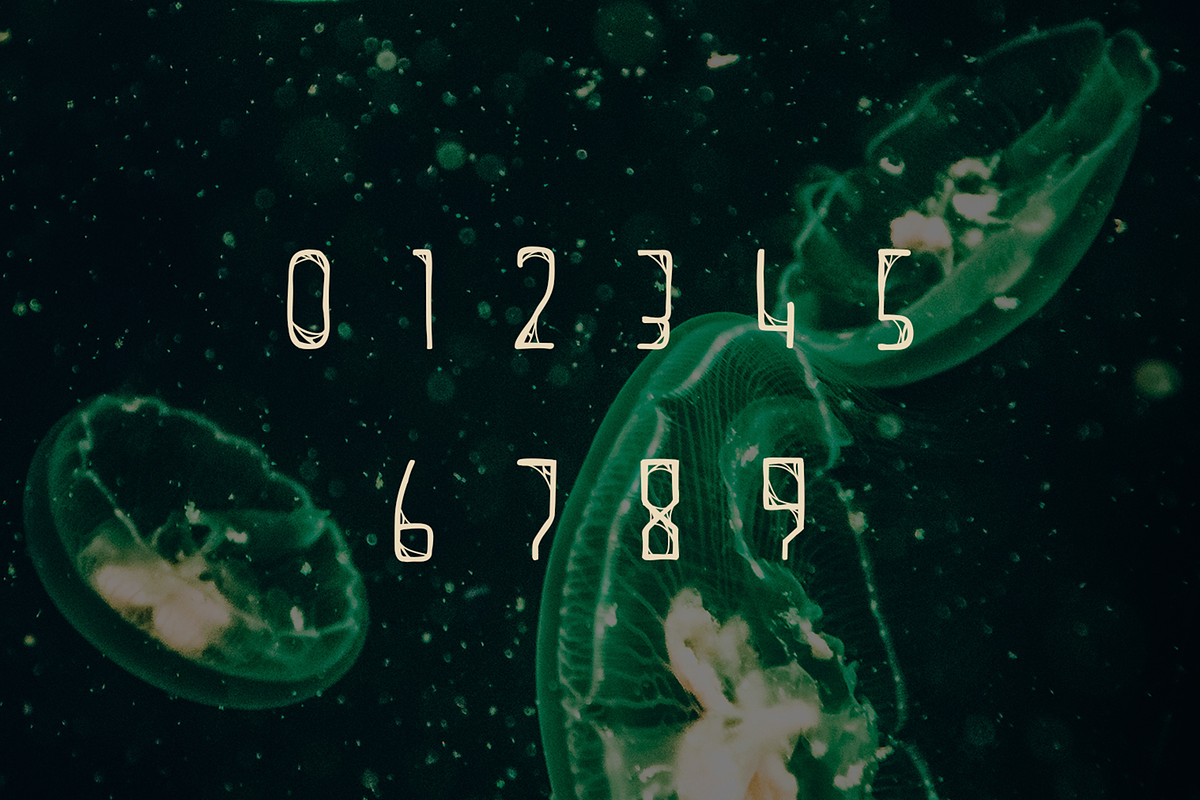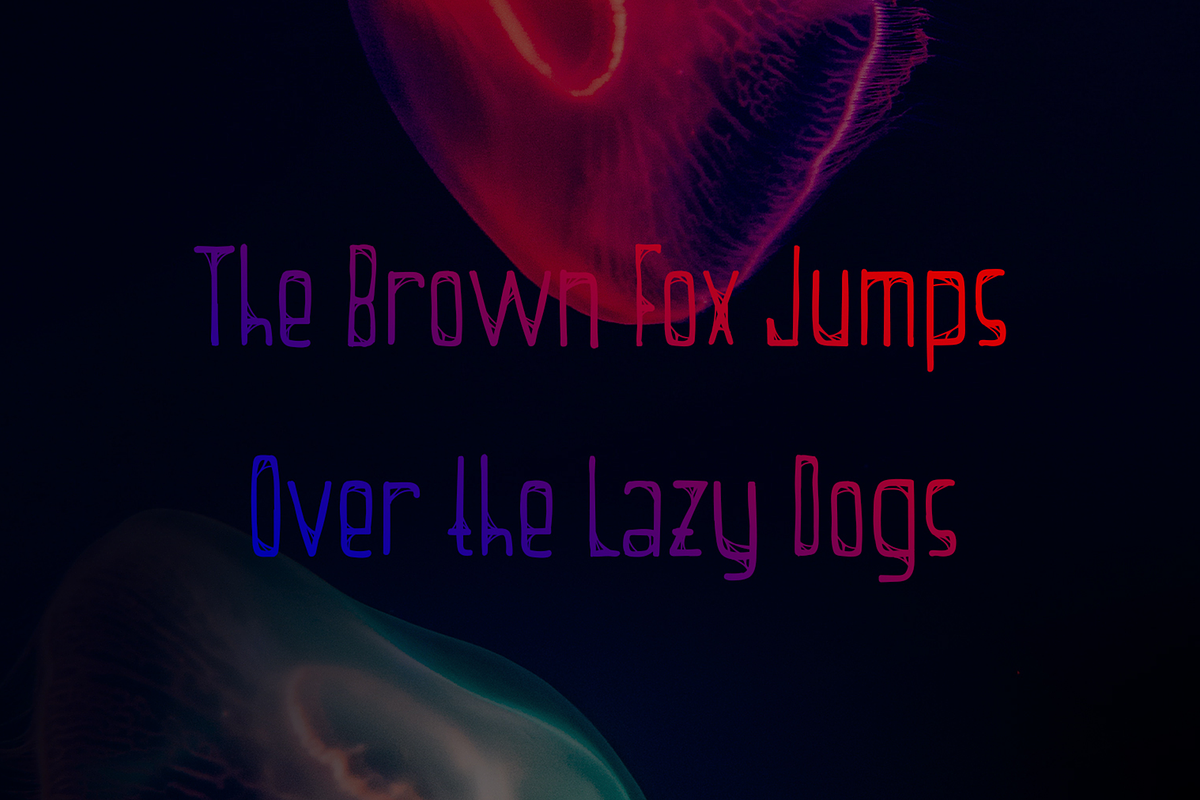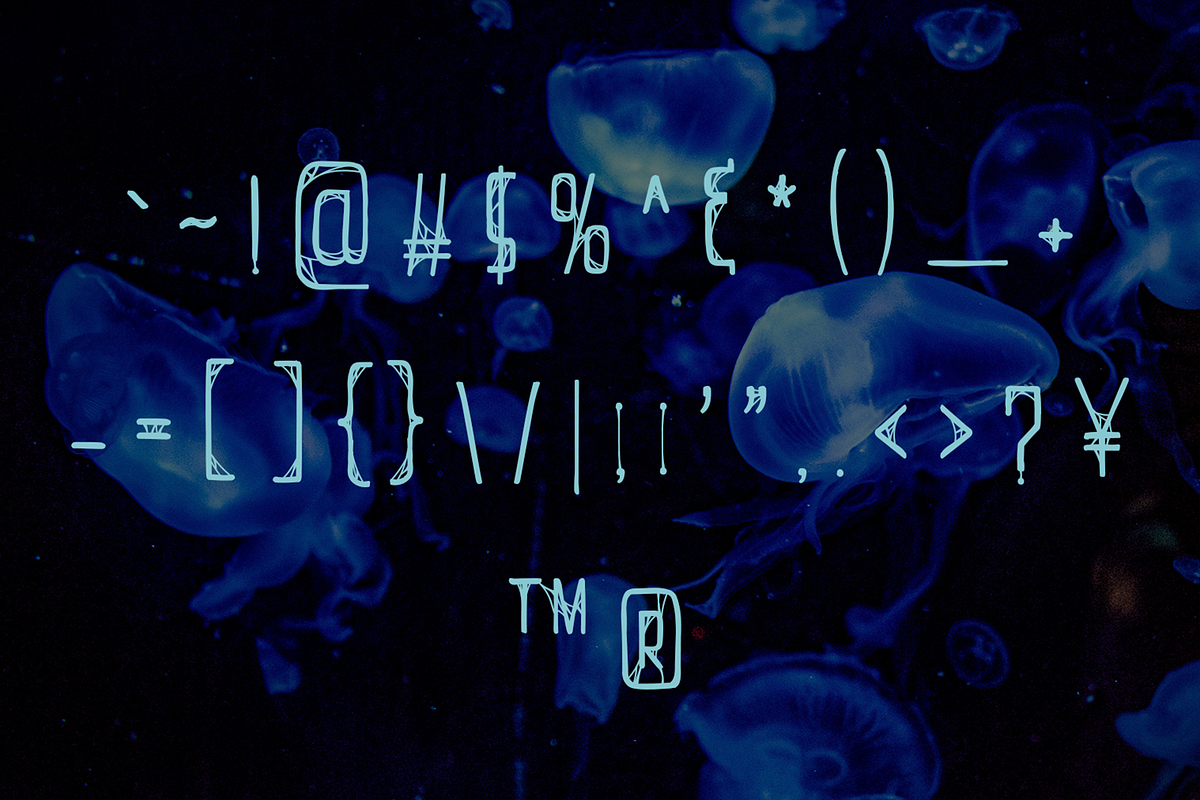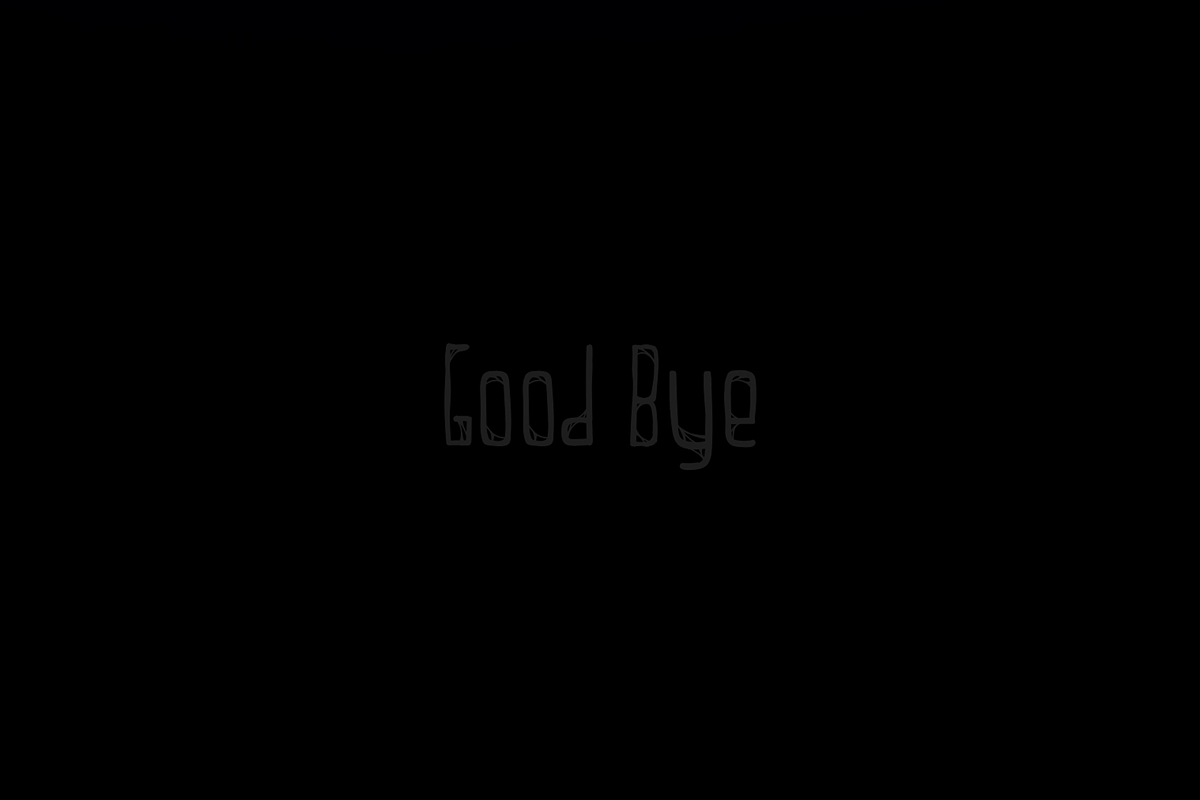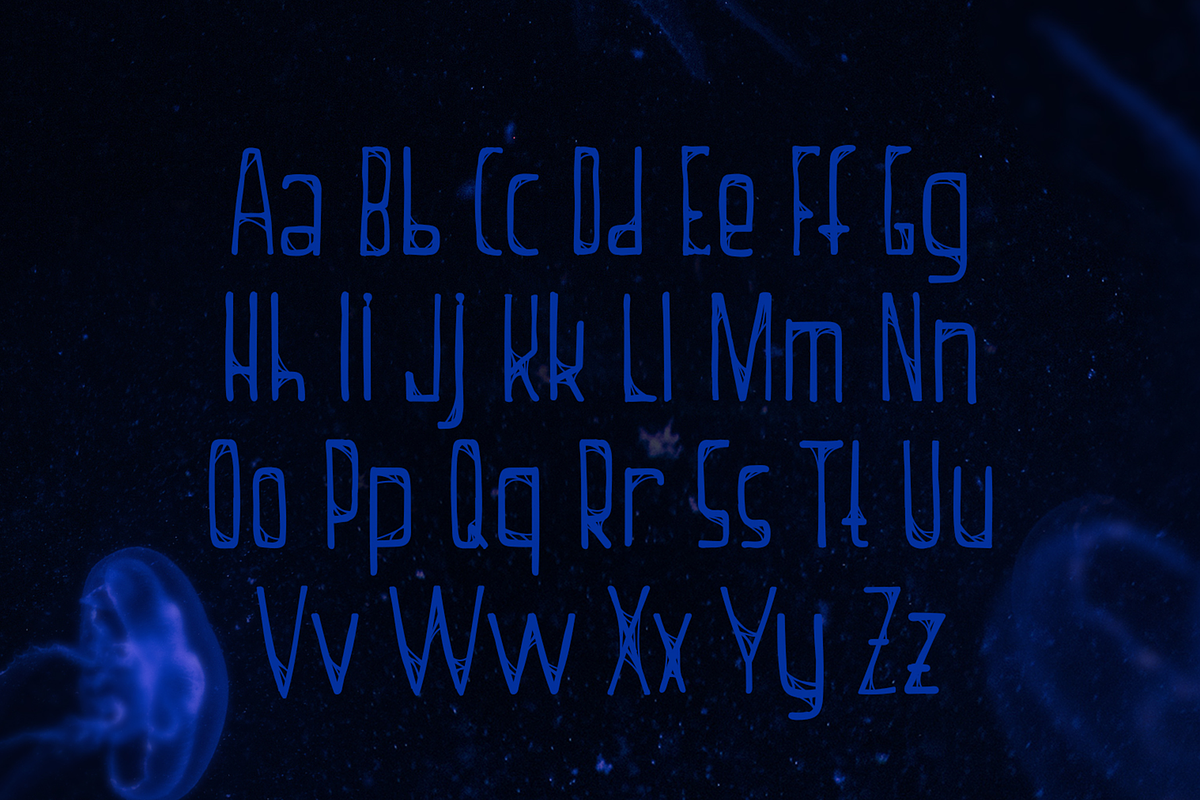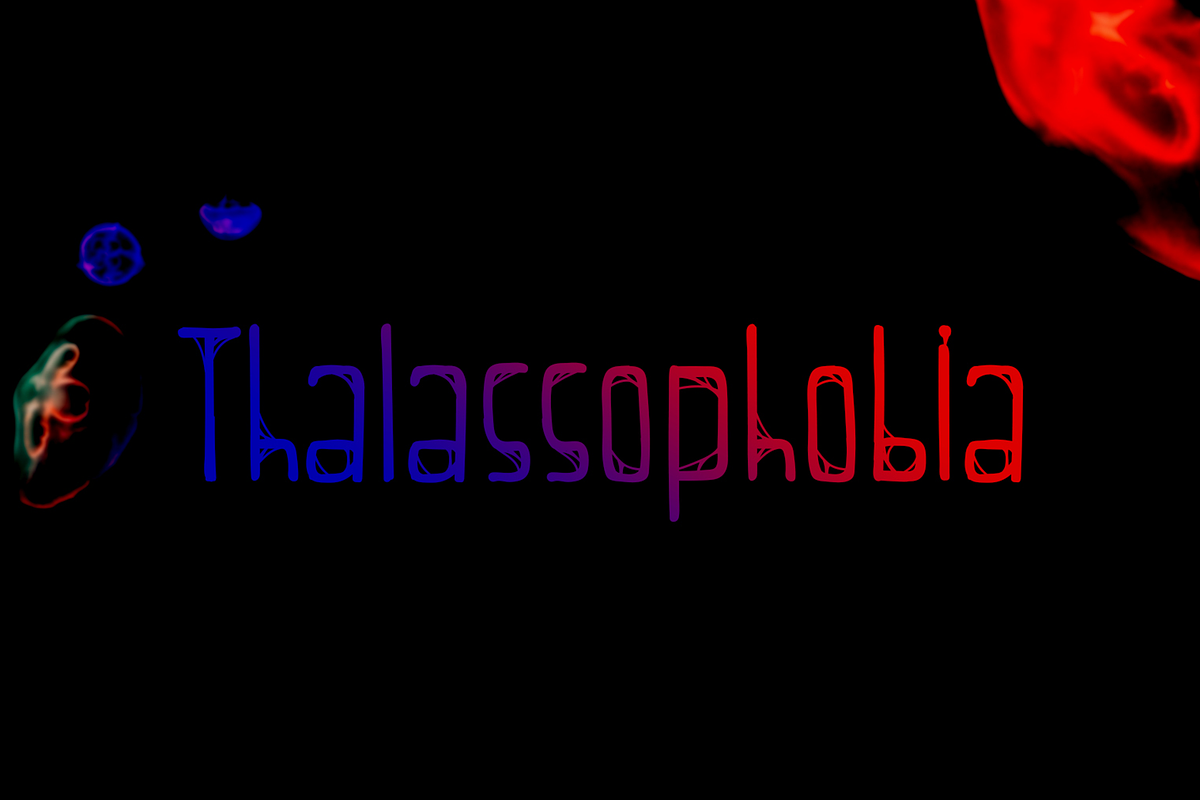
Thalassophobia
Thalassophobia is an original and unique display font. It was inspired by the deep waters in the ocean. Add it confidently to your projects, and you will love the results.